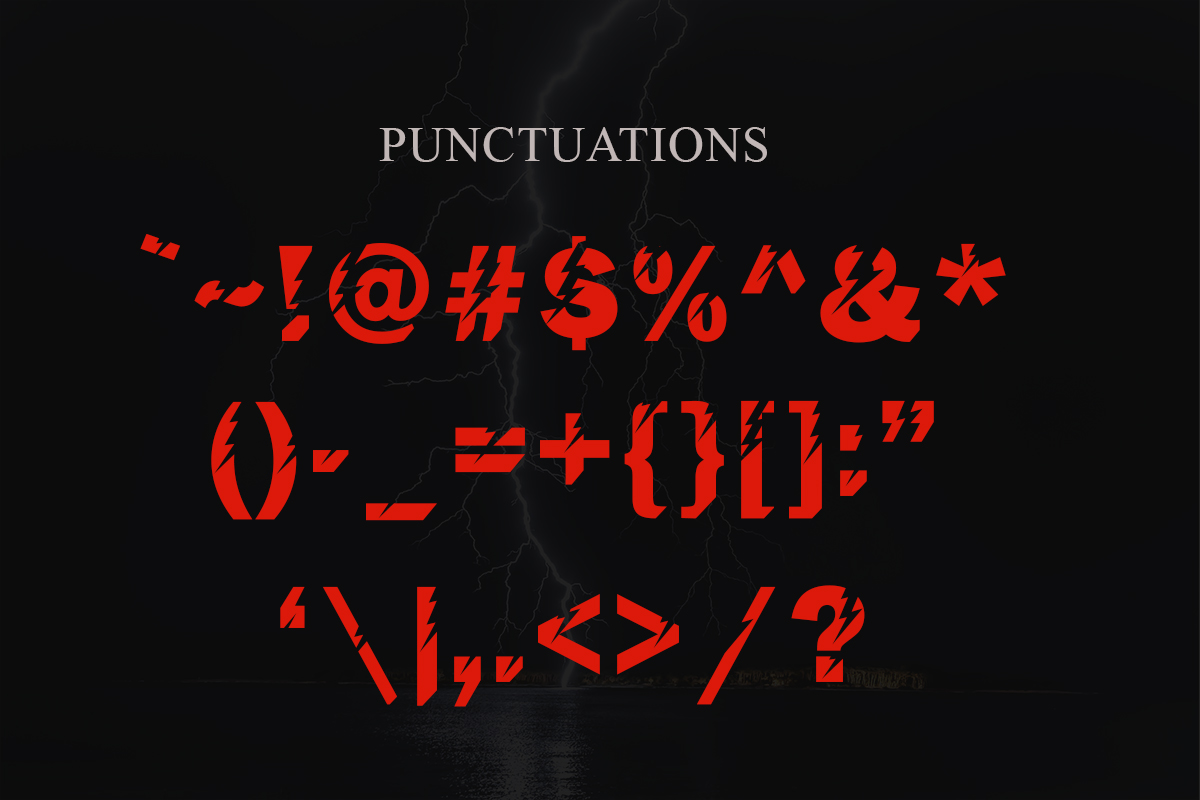
Bledhex Font
Bledhex Display Font
This is a bold, aggressive and powerful looking display font. Add this assertive font to your favorite sports related, advertisement, power drinks, gear creations and notice how easily they stand out.